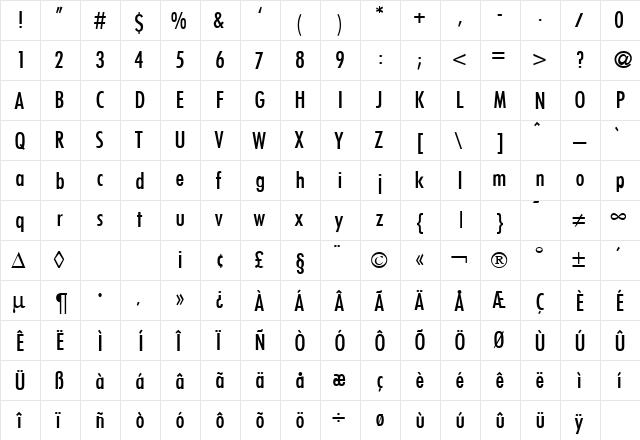
FunctionCondTwoMedium Regular Font Preview
FunctionCondTwoMedium Regular
Design Context for FunctionCondTwoMedium Typeface
FunctionCondTwoMedium trades formality for fun, with bouncy, characterful letterforms that bring warmth and energy to any project.
Font Pairing: Pairs well with a rounded or humanist sans for body copy, maintaining the friendly tone without relying on FunctionCondTwoMedium to carry extended reading.
Pro Tip: Use FunctionCondTwoMedium at larger display sizes where its expressive character can land. Pair with a clean, simple sans for body copy to maintain readability.